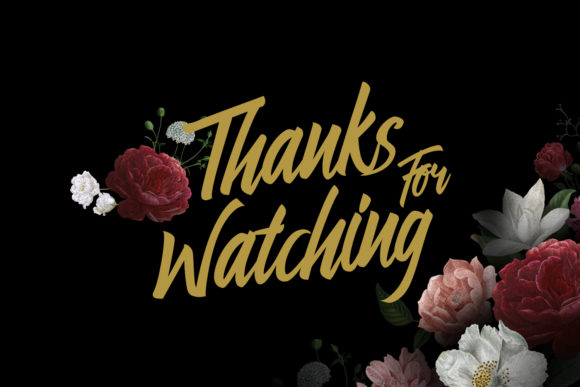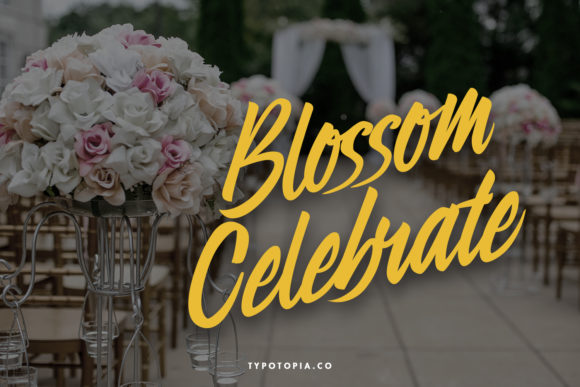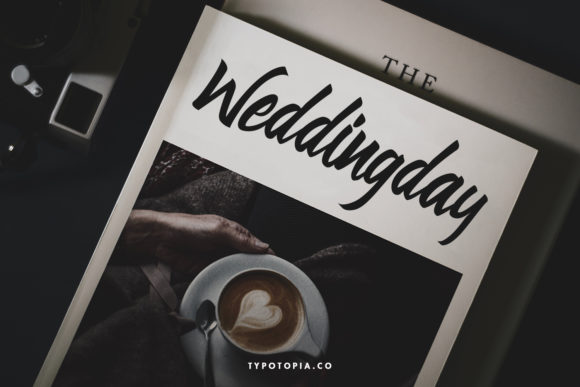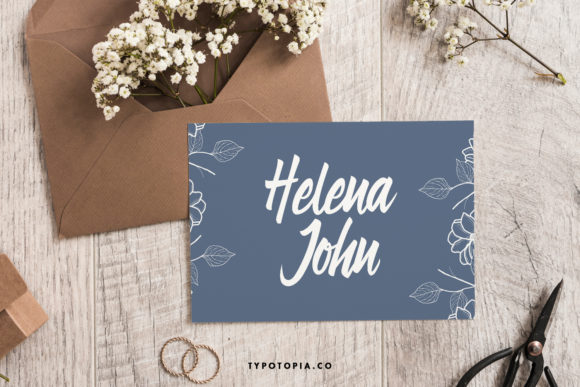
About Preteoria Font
Introducing “Preteoria,” a gracefully flowing handwritten font that captivates with its elegant touch. Its natural flow and delicate strokes make it a perfect choice for all your favorite projects. Prepare to be enchanted by its incredibly distinct and timeless style, and watch as it elevates your designs to new heights, creating truly spectacular works of art!
The beauty of “Preteoria” lies in its seamless flow and elegant appearance. Each letter is meticulously crafted with precision, resulting in a font that is both visually striking and effortlessly sophisticated. From wedding invitations to branding materials, this font adds a touch of class and charm that sets your work apart.
Fall in love with the versatility of “Preteoria.” Whether you’re working on modern designs or aiming for a classic look, this font effortlessly adapts to any context, making it a timeless addition to your creative arsenal.
With “Preteoria,” your imagination knows no bounds. Its distinct style and readability make it suitable for various design applications. From logos to social media graphics, this font brings an air of elegance to every project, capturing attention and leaving a lasting impression.
The flowing and handwritten nature of “Preteoria” adds a personal touch to your designs, evoking a sense of authenticity and warmth. It feels like a custom-made creation, tailored to resonate with your audience on a deeper level.
Unleash your creativity and let “Preteoria” be the guiding force behind your most ambitious designs. Embrace its elegant touch and allow it to inspire you to craft spectacular visuals that enchant and captivate. Whether you’re a seasoned designer or an aspiring artist, this font empowers you to create exceptional and memorable designs.
So, immerse yourself in the allure of “Preteoria” and let it become your creative muse. Discover the magic of its flowing handwritten style, and witness how it transforms your designs into masterpieces that resonate with elegance and sophistication. With “Preteoria” by your side, your projects will shine with a sense of distinction and beauty that leaves a lasting impression on all who behold them!